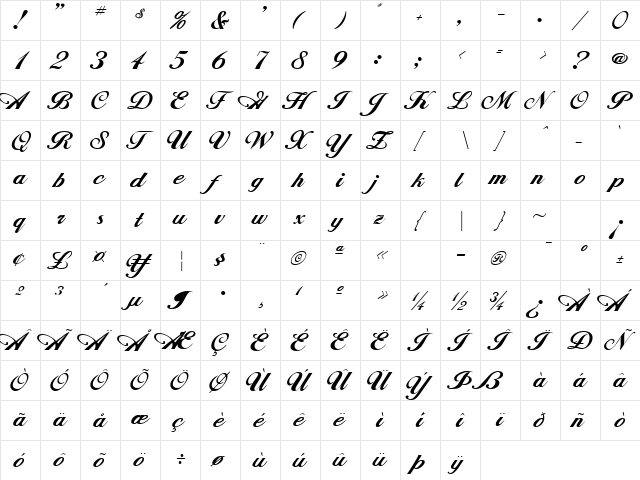
GE Signature Script Regular
Design Context for GE Signature Script Typeface
GE Signature Script brings a calligraphic fluidity to the page — its connecting strokes and expressive curves give it an unmistakably human quality.
Font Pairing: Combine GE Signature Script with a simple geometric sans for maximum contrast — the tension between flowing curves and clean structure is a classic typographic pairing.
Pro Tip: Pair GE Signature Script with a clean sans-serif for supporting text. The contrast between fluid script and geometric structure creates an elegant typographic hierarchy.